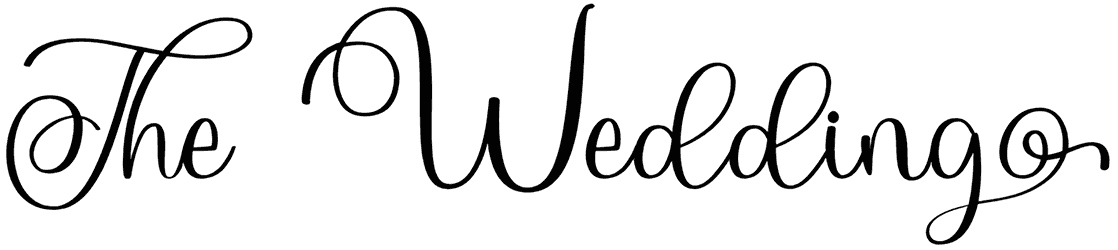
The Wedding Font
Ready to experience the sweet artistic letters of a script font and promote your exquisite artwork in a style that surprises all viewers? Can anyone say no? Well, this animated wedding font with deep curly lettering would be glowing on any content, especially what is related to happy parties, anniversaries, or weddings.